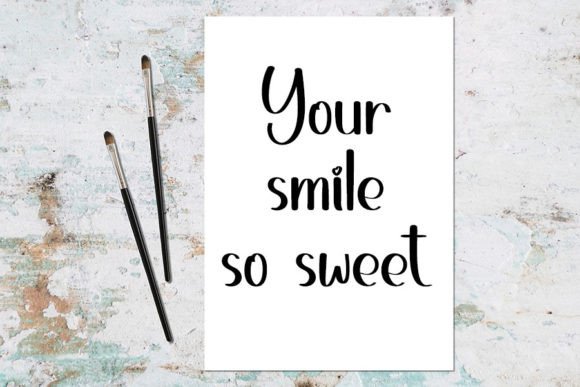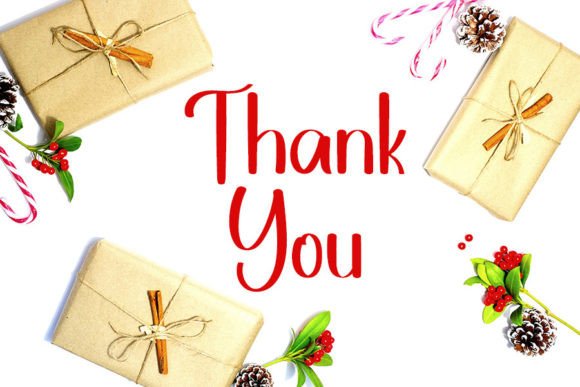
Valentaines Moment Font
What Is Valentaines Moment Font?
Valentaines Moment Font is a neat and elegant handwritten script created to bring sophistication and charm to any project. Each letter features graceful curves and smooth lines that feel both modern and timeless. Because of its clean and stylish look, this font is perfect for designs that need a touch of elegance.
You will notice how effortlessly Valentaines Moment adapts to many creative themes and styles.
Valentaines Moment is a versatile font suitable for various applications. For example, you can use it to design wedding invitations, save-the-date cards, and event stationery. Its flowing script adds romance and class to any celebration.
In addition, it works beautifully for logos and branding materials. If you want your business to look polished and memorable, this font helps you make a lasting impression.
You can also apply it to product packaging, labels, and handmade items. The refined handwritten style makes any product feel premium and special.
When you create social media graphics or blog headers, Valentaines Moment adds a professional yet warm tone that draws attention. Even simple quotes or announcements feel more engaging.
Moreover, this font is perfect for greeting cards, book covers, and event signage. Your designs will feel cohesive, thoughtful, and beautifully finished.
Why Should You Choose Valentaines Moment Font?
There are many reasons to pick Valentaines Moment for your next project. First, it is easy to read in all sizes. Even in smaller text, every letter stays clear and elegant.
Also, it pairs nicely with serif and sans-serif fonts. This makes it simple to build layouts that feel balanced and modern.
Designers appreciate that it looks polished right out of the box, saving time and delivering professional results with ease.
Valentaines Moment Font adds a touch of refinement and elegance to every project. For example, when you want your work to feel classy and inviting, this font makes it effortless.
Even minimalist layouts look more sophisticated with its smooth strokes. Whether you’re designing wedding materials, branding, or social content, your work will stand out.
Using a premium handwritten script also shows your commitment to detail and quality. This helps build trust with your audience and makes your creations more memorable.
Valentaines Moment Font is more than just a typeface—it’s a design asset that helps you share ideas with clarity and style. From weddings and logos to packaging and digital content, this font adapts easily and leaves a lasting impression.